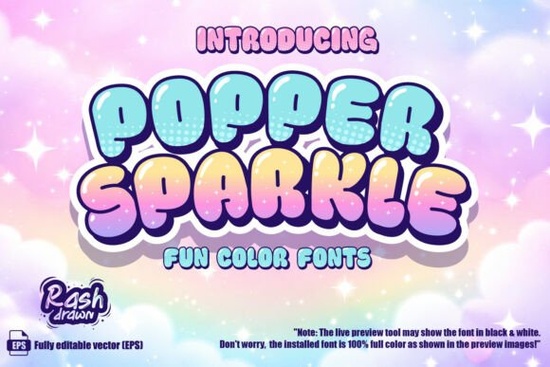
If you have ever spent hours trying to manually color and layer bubble letters just to get a glossy, 3D effect, you know how frustrating it can be. The Popper Sparkle Font solves this exact problem by letting you type directly in full color. This color font blends playful bubble shapes with magical textures, giving your text an instant professional finish without the extra work. Whether you are designing for print-on-demand products or creating social media graphics, this tool saves you time while making your text pop.
How does the color font technology actually work?
Many crafters and designers wonder how a single text layer can produce such complex, multi-colored 3D effects. This typeface uses advanced color font technology, which means the colors, gradients, and textures are built directly into the file itself. When you select it in compatible software, the program automatically renders the hexagonal patterns and star-studded gradients. You do not need to use complex clipping masks, draw individual shapes, or manually apply layer styles. It is as simple as typing your words and watching the magic happen.
What kind of projects work best with this style?
The playful, bubbly aesthetic makes this typeface highly versatile for specific niches. Here are a few ways small businesses and hobbyists can use it:
- Print-on-Demand Apparel: Perfect for kids' clothing, party wear, or quirky adult t-shirts that need a vibrant, eye-catching slogan.
- Stickers and Planners: The glossy, 3D look translates beautifully to physical stickers, giving them a premium, die-cut appearance right off the printer.
- Digital Invitations: Ideal for baby showers, birthday parties, or magical themed events where a dreamy, enchanting vibe is required.
- Social Media Graphics: Use it for short, punchy quotes or sale announcements that need to stand out in a crowded feed.
Are there similar typefaces for different seasonal themes?
- Keep it legible: Because the textures are busy, use this typeface for short words or headlines rather than long paragraphs to maintain readability.